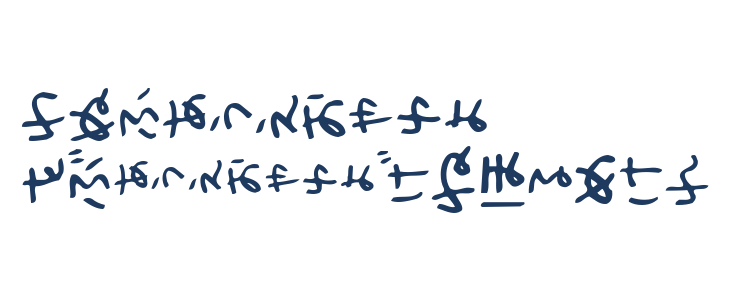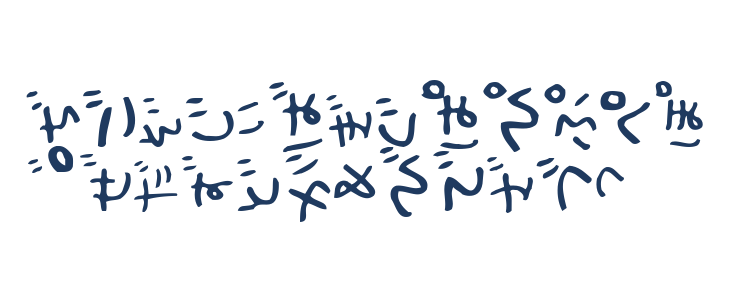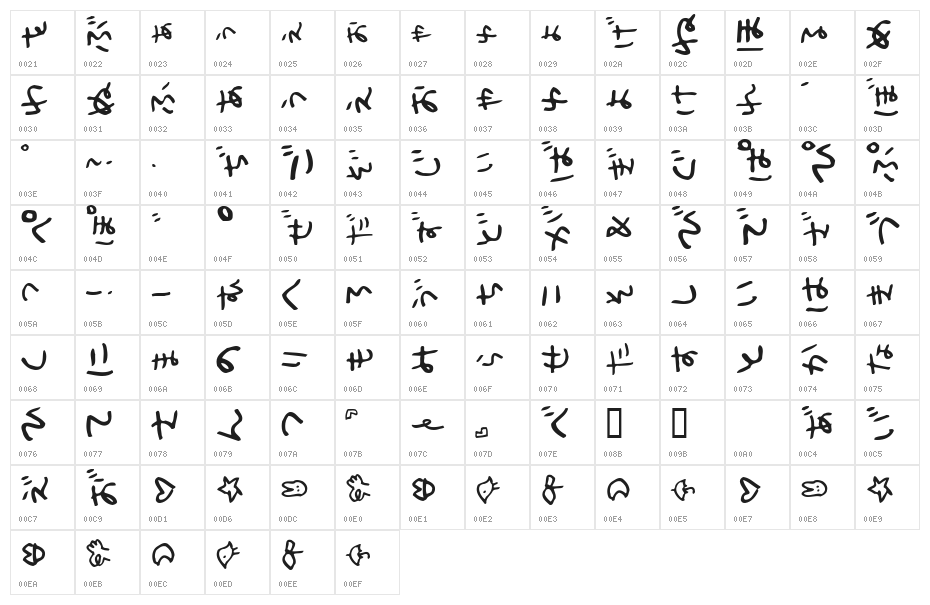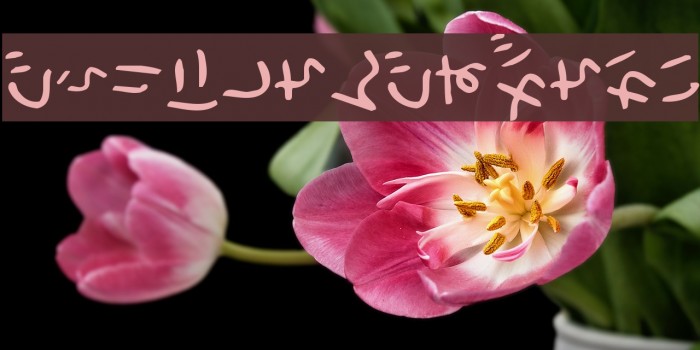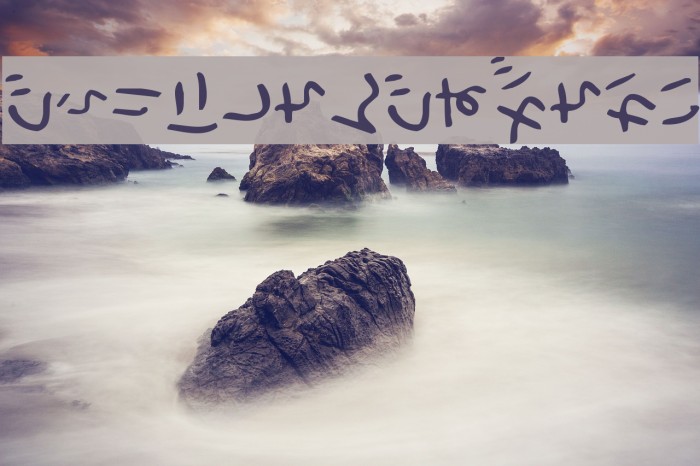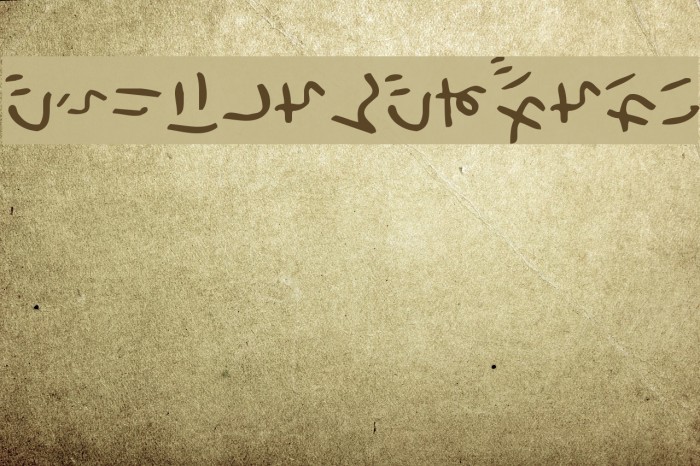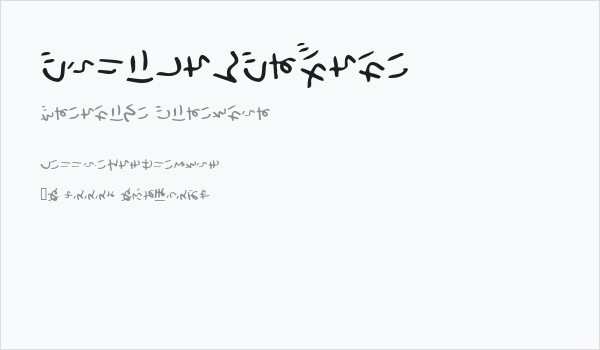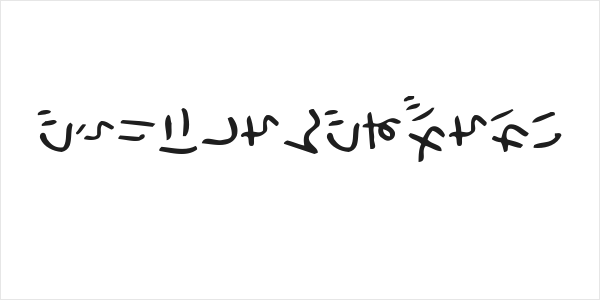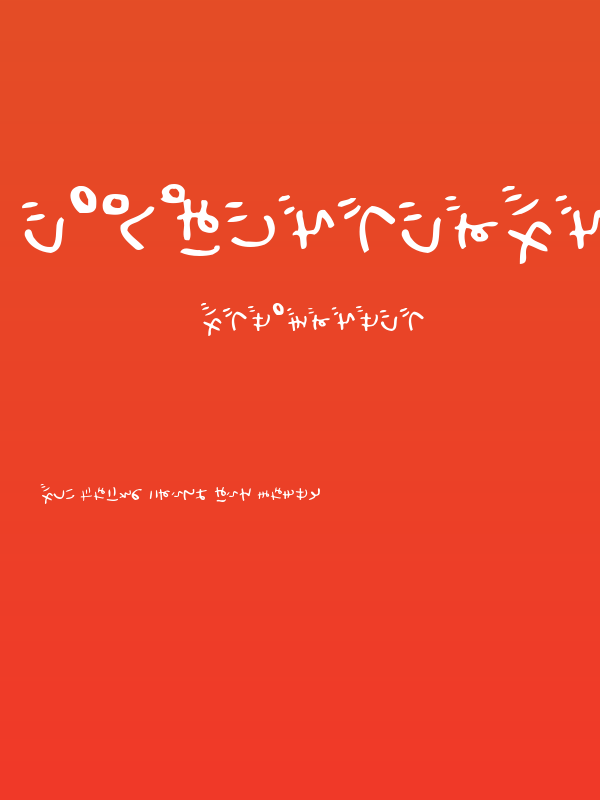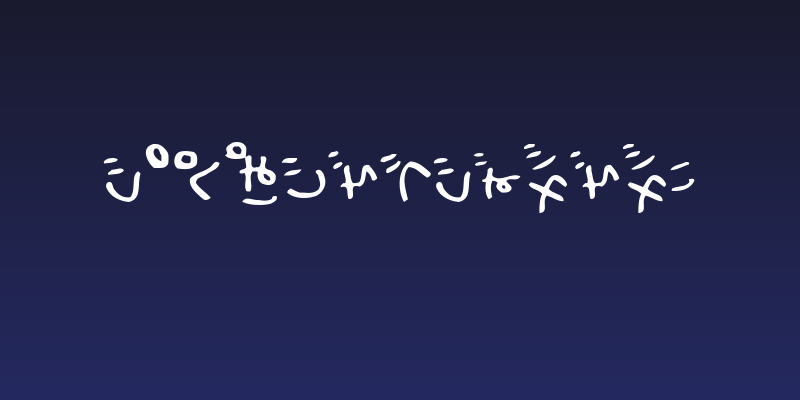
HolidayHrTate Font
A highly stylized, decorative script resembling abstract handwriting or calligraphy, with irregular, flowing strokes and unique character shapes that are not easily legible as standard Latin letters or numbers.
Overall StyleDecorative, Artistic, Abstract
Use CaseLogos, Posters, Artistic projects, Fantasy themes
Proposed ProjectsGreeting cards, fantasy or magical themes, artistic posters, creative branding.